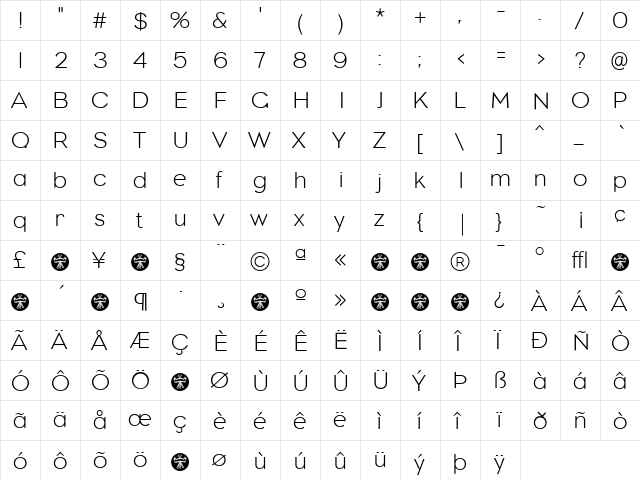
Eagle Regular
Design Context for Eagle Typeface
Eagle is a composed and adaptable typeface that performs quietly and consistently across a wide range of design contexts.